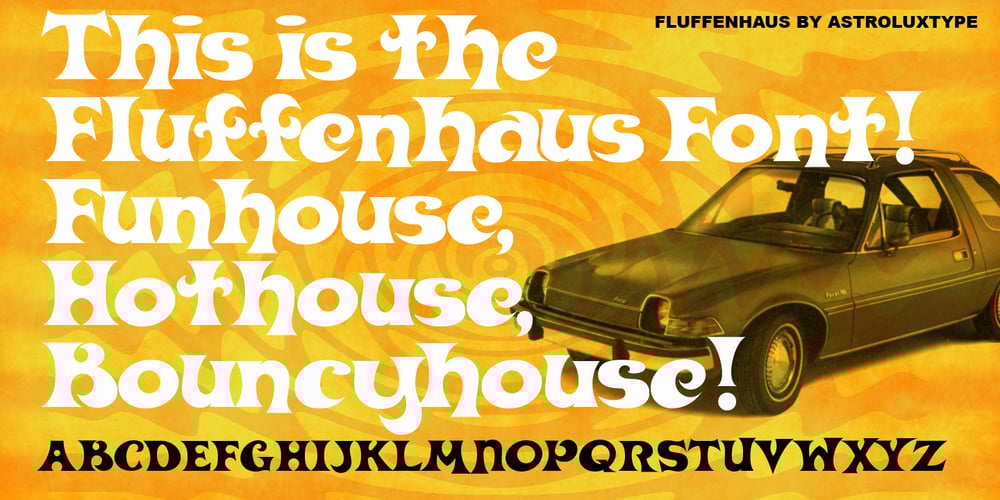
Fluffenhaus Font Family was designed by Glenn Parsons and published by astroluxtype. Fluffenhaus contains 1 styles and family package options. Fluffenhaus is a vintage bold retro-font, the glyphs are soft serve ice cream, sorta Cooper Black after to much party. A fun playful look that suggests the 1960’s and 1970s rock posters and cereal box art as well. Fluffenhaus is a fat bold font, apply to projects that need an attention grabbing headline that expresses the fun of the information being convened. Tightly spaced in the metric, suggested uses would be for it to be used BIG and then bigger. Fluffenhaus is a groovy beautiful and tuned into the psycho-fab of the now!